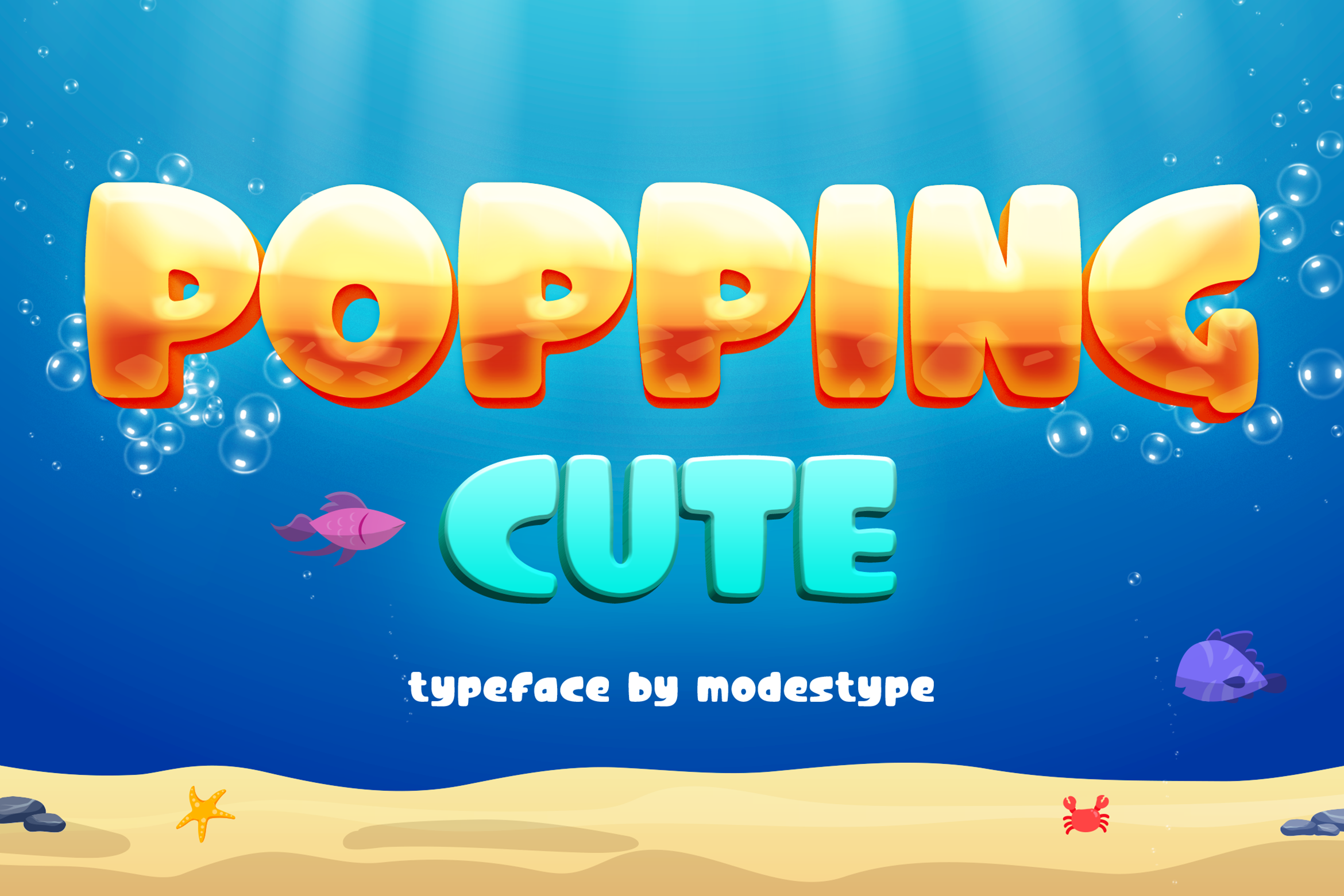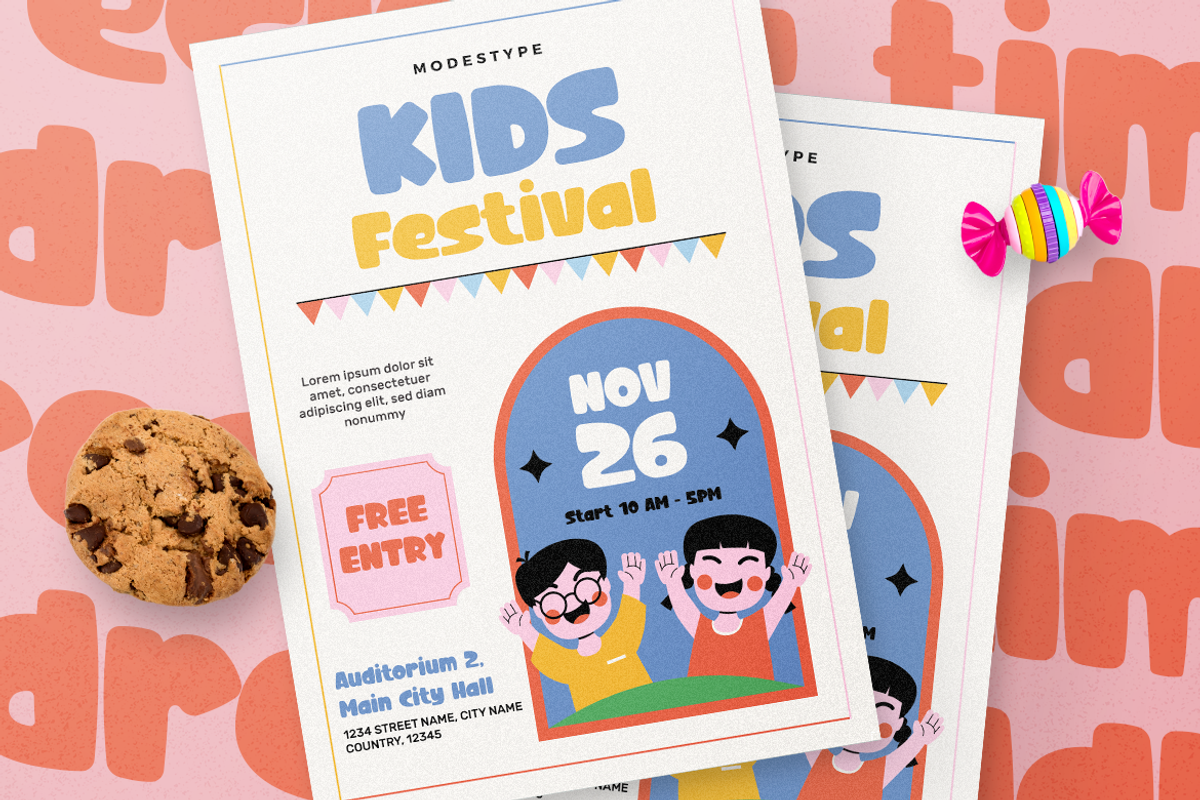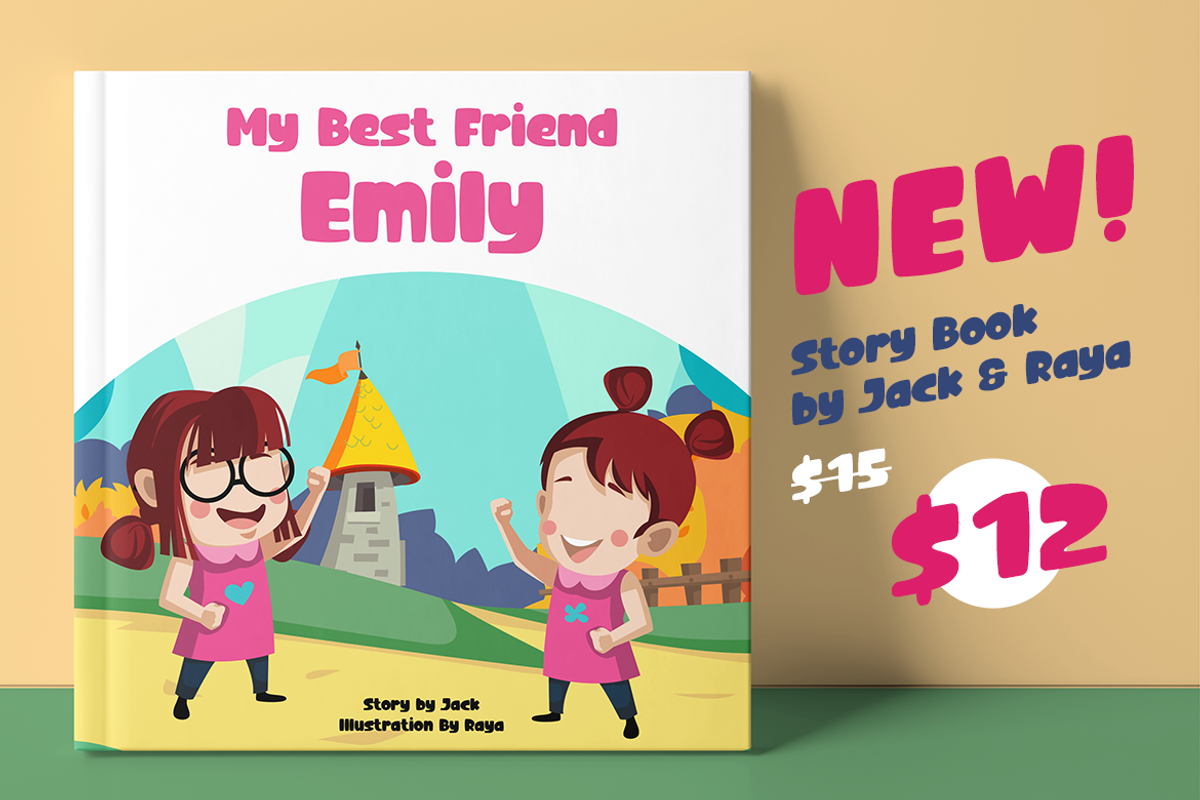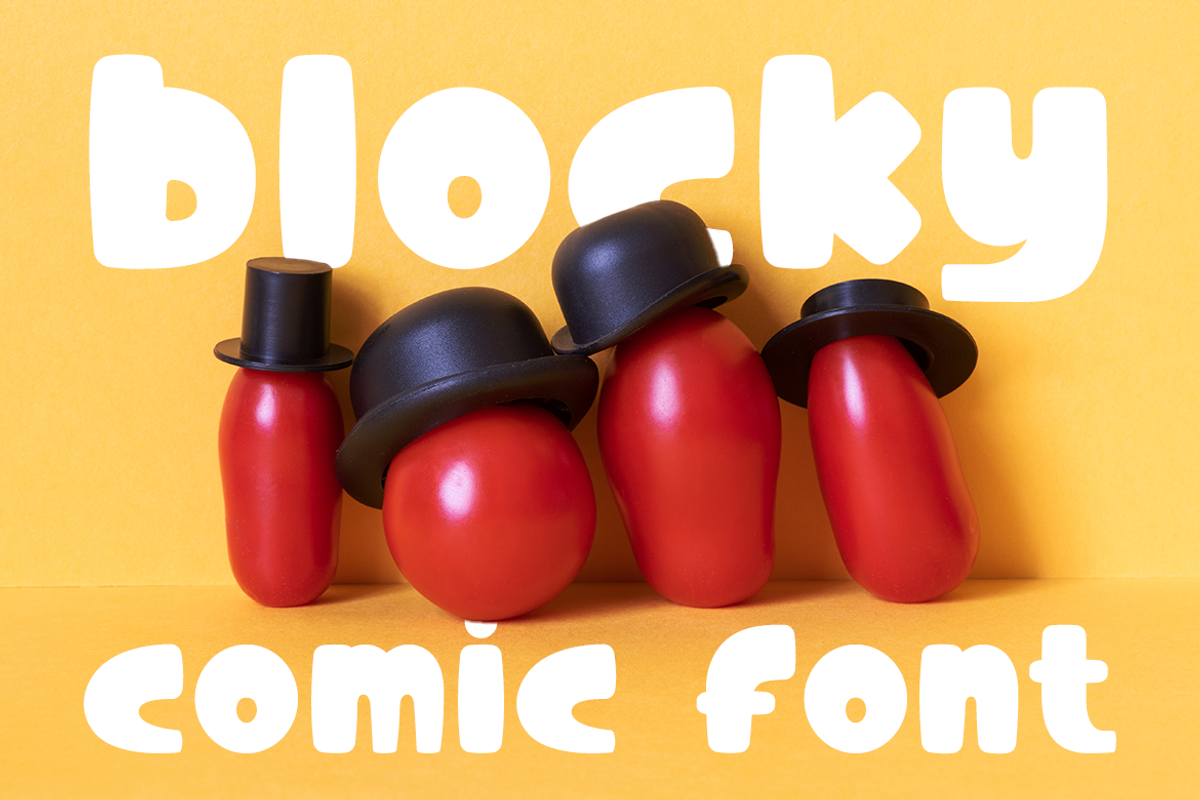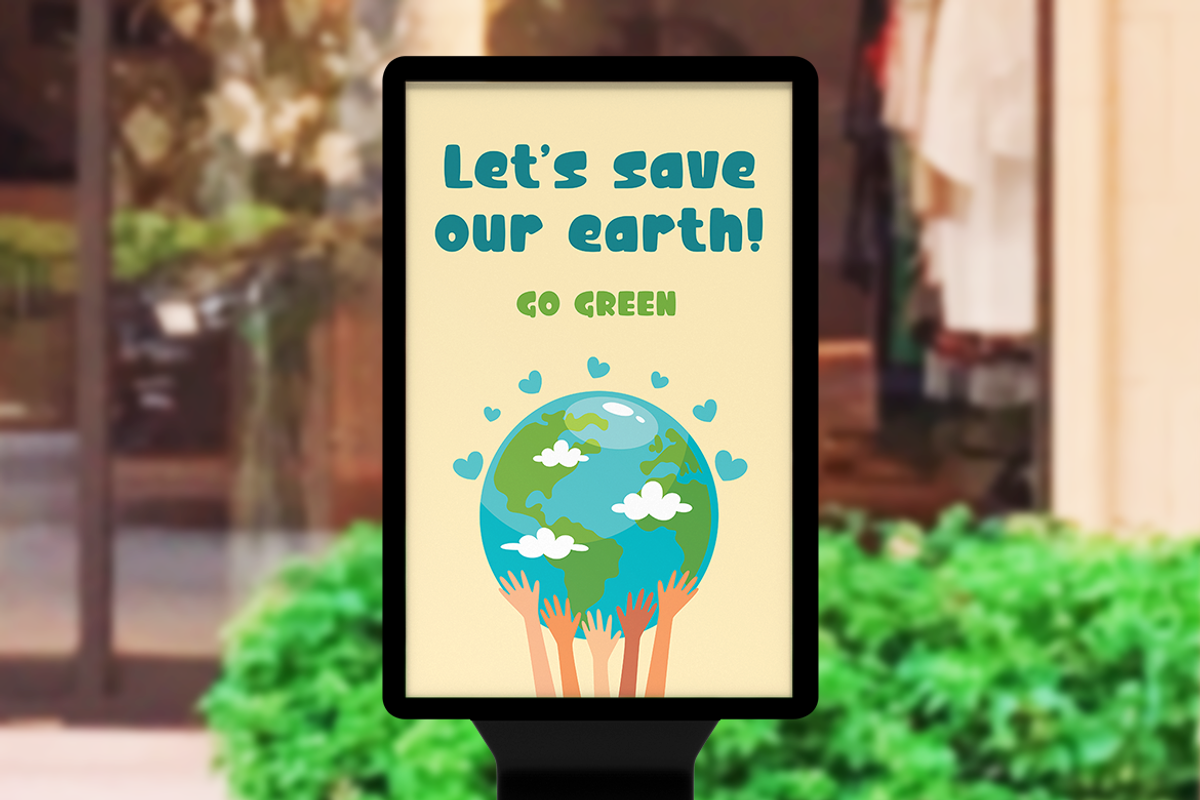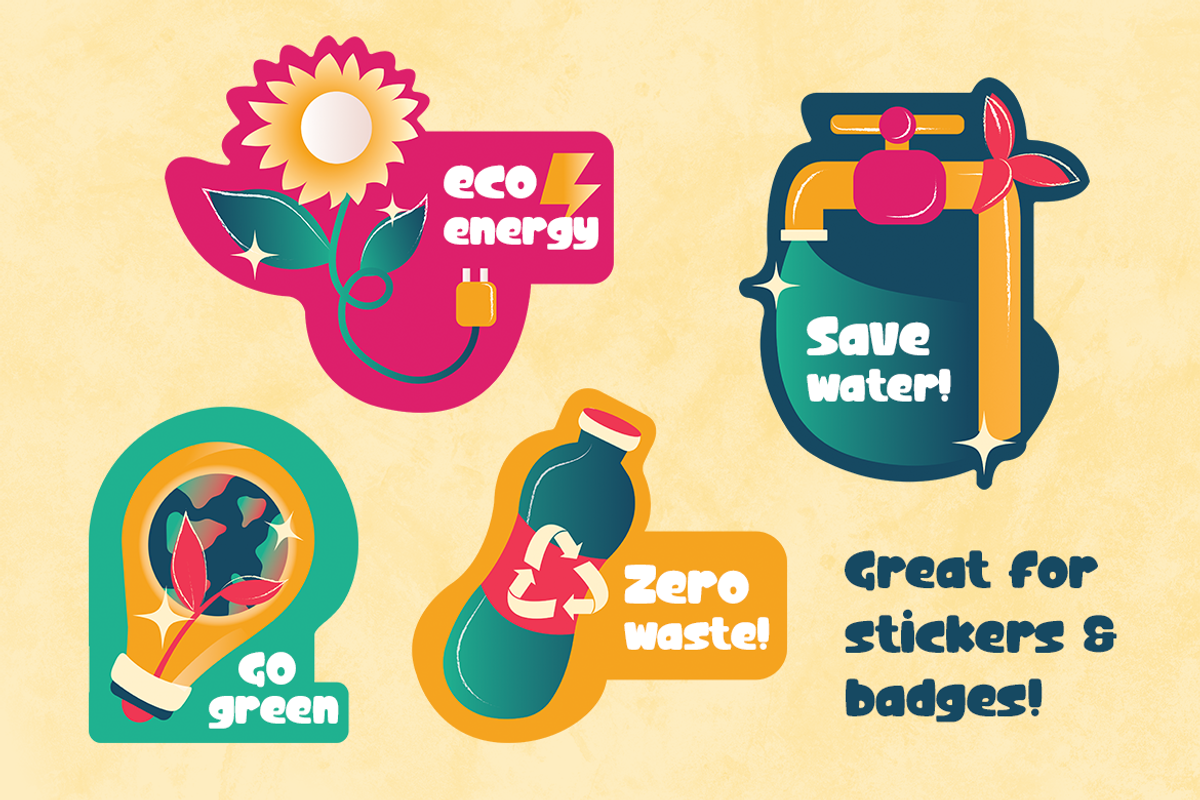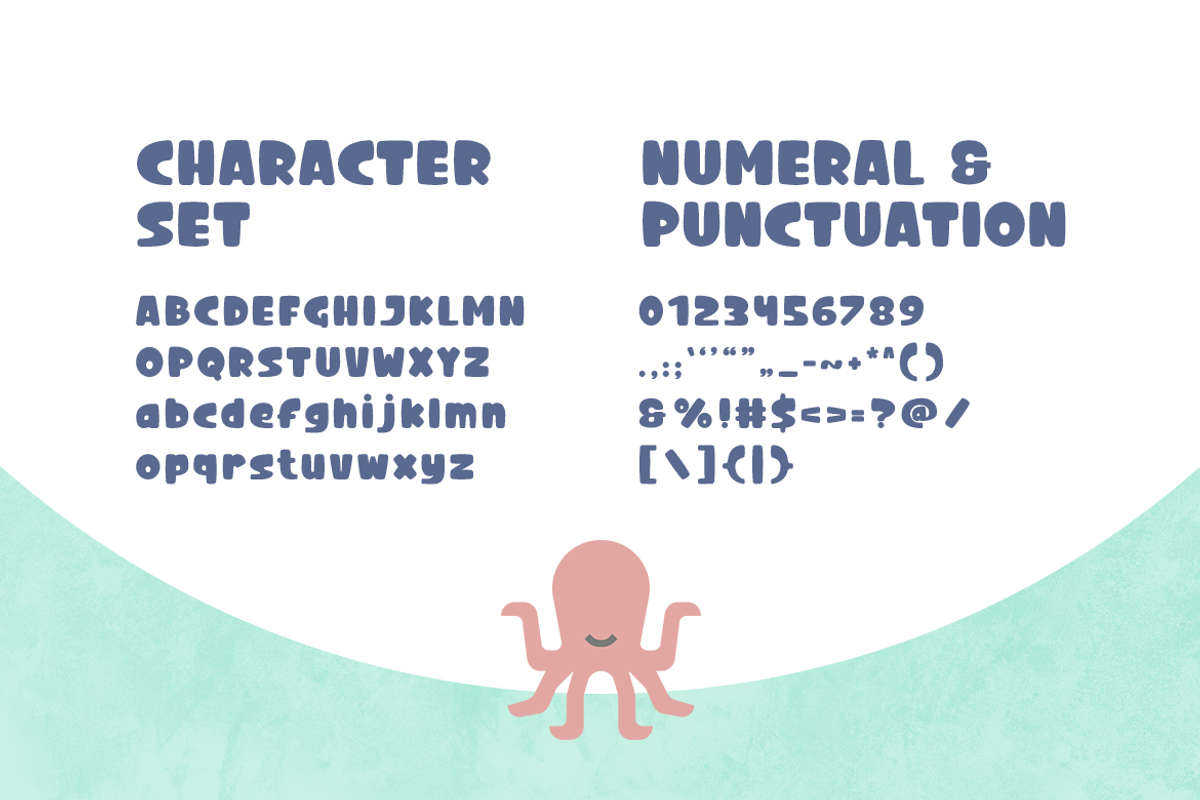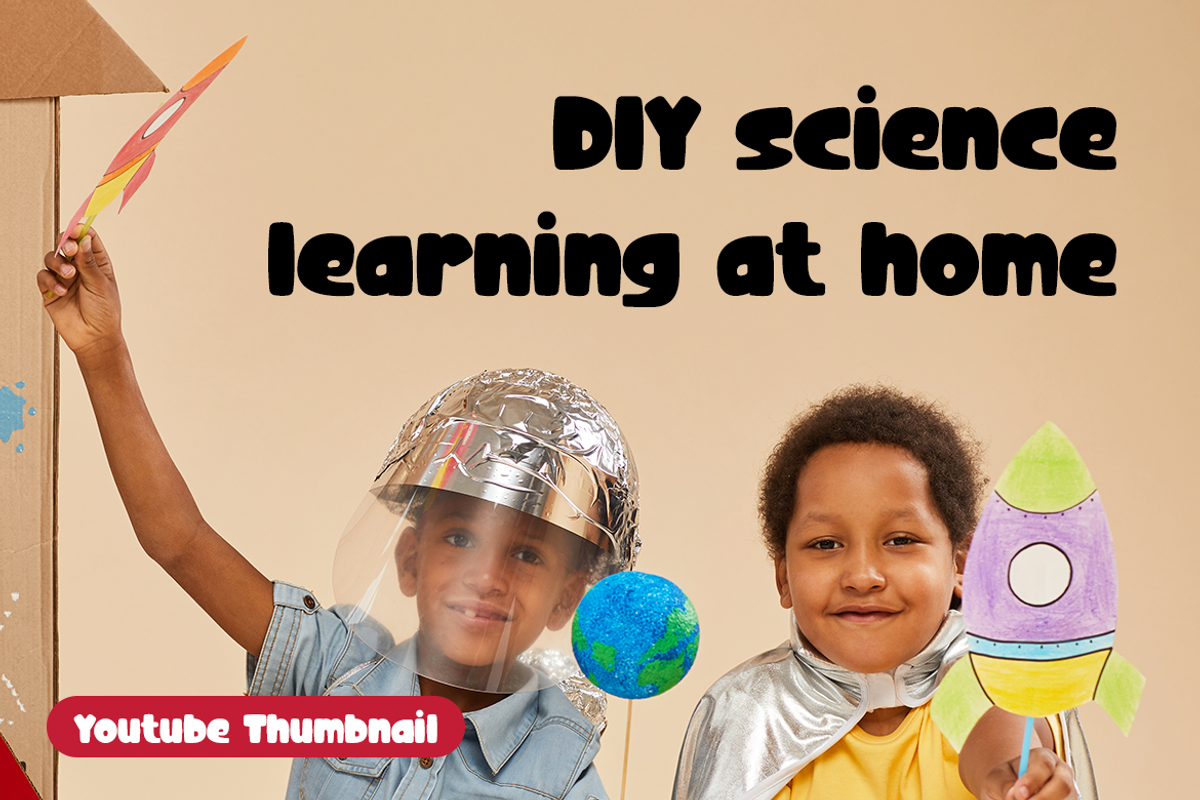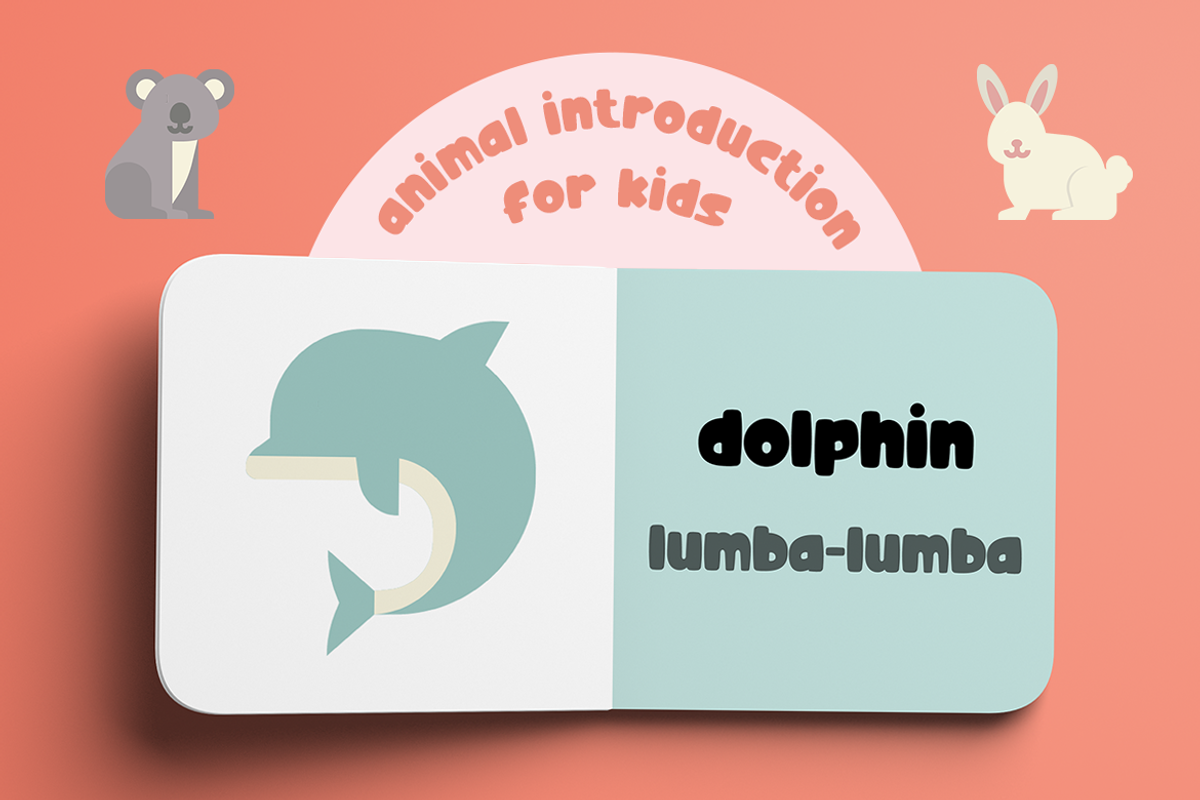
Popping Cute - Blocky Cartoon Font
Popping Cute – Cartoon gaming font
The rounded corner sans serif shape will bring a lot of joy in kids hearts, Popping Cute will be the center of their world.
Suit perfectly for kids market, online games, stationary, school supplies font, poster, movie title, youtube covers, youtube thumbnails, social media page covers and so on…